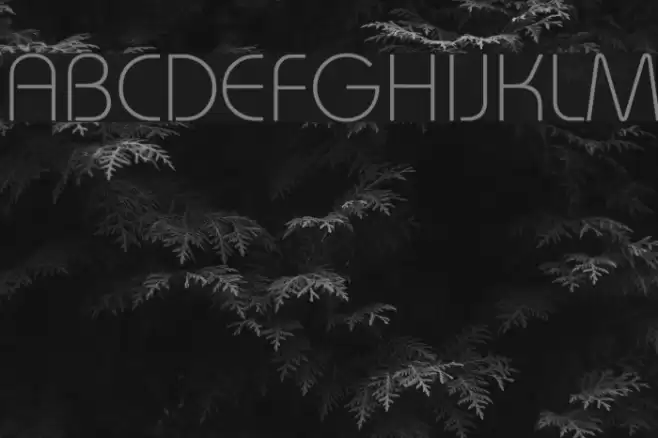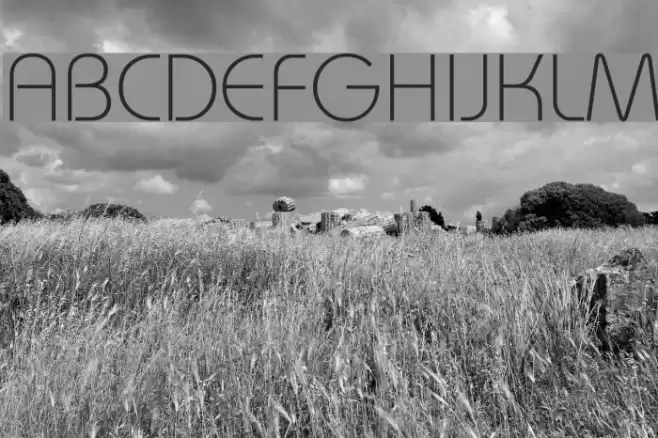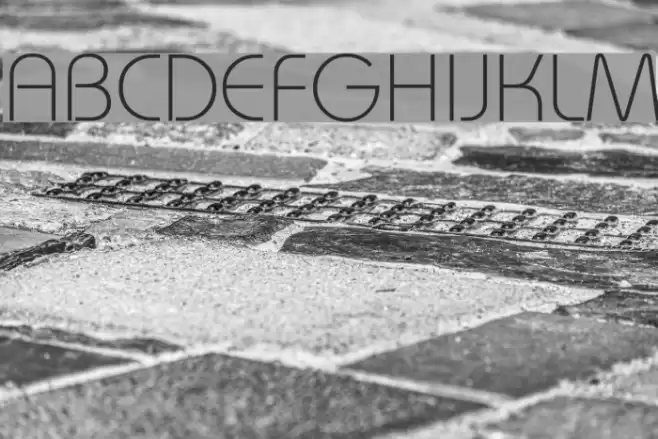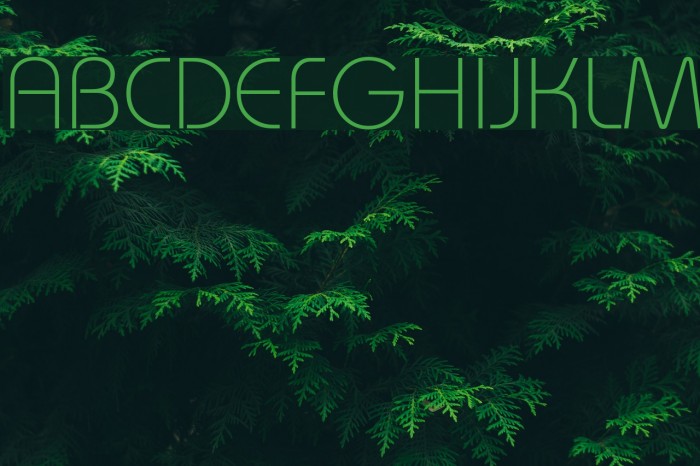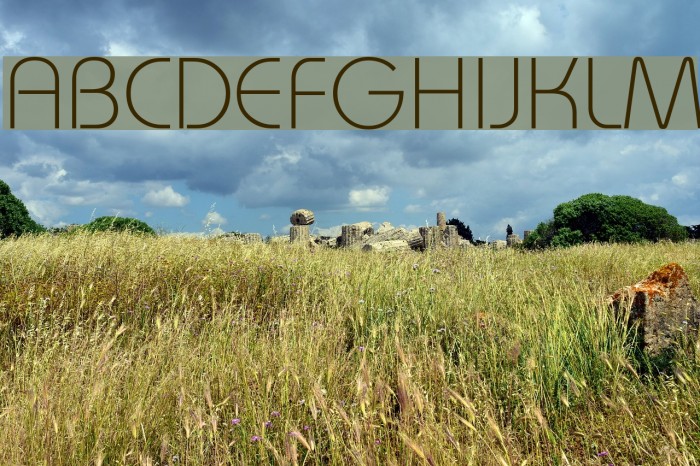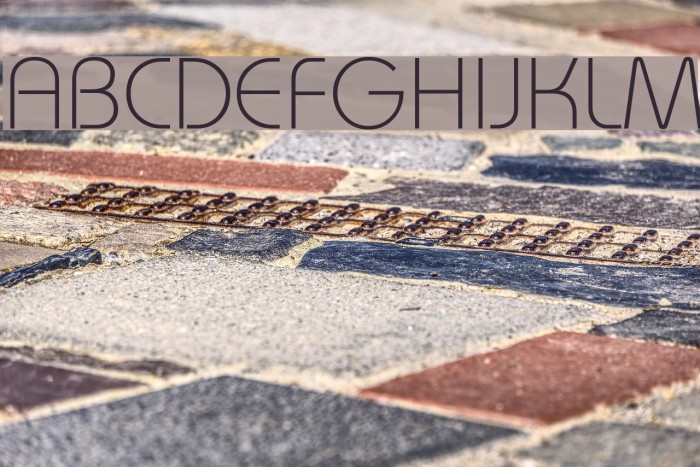
Brie Light Font
Brie Light Description
This font features a clean and modern aesthetic with smooth, rounded edges and a minimalist design. The characters are evenly spaced, providing a balanced and harmonious appearance. The uppercase and lowercase letters maintain a consistent height, contributing to its sleek and streamlined look. The numerals and special characters are designed with the same attention to detail, ensuring readability and style. This font is versatile, making it suitable for a variety of design applications where a contemporary and elegant touch is desired.
A clean, modern font with smooth, rounded edges and balanced spacing from Decorative fonts.
- Proposed Projects: Ideal for branding, web design, advertising, and editorial projects that require a modern and elegant touch.